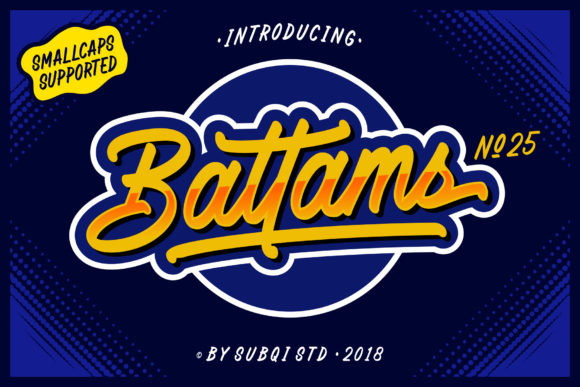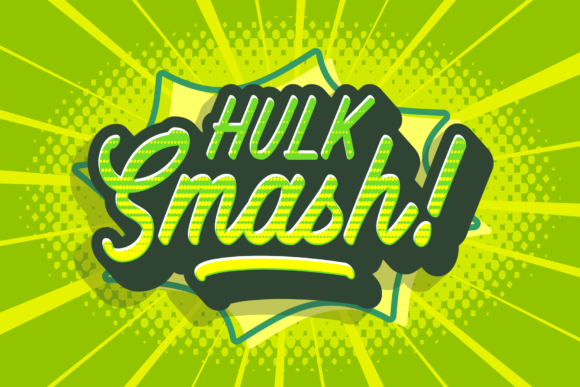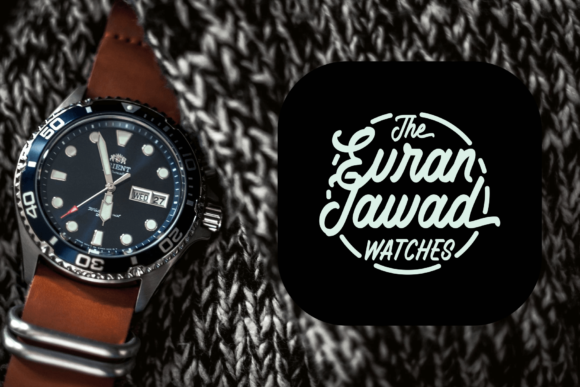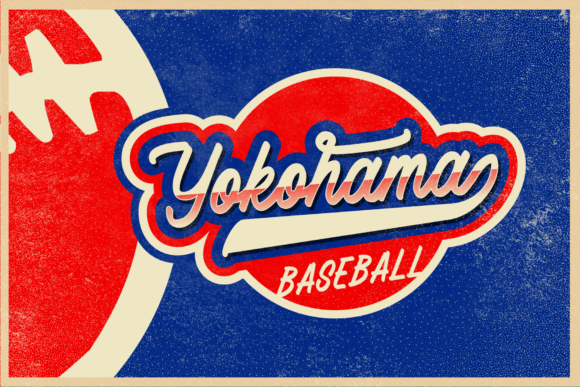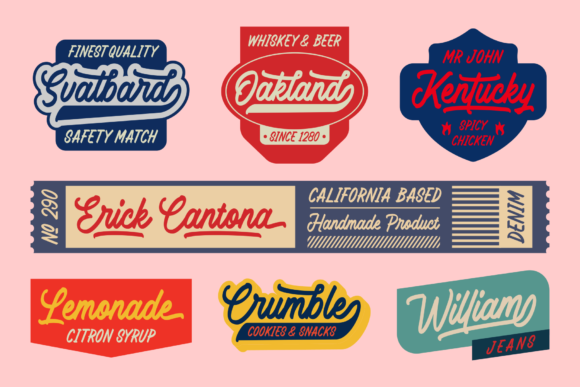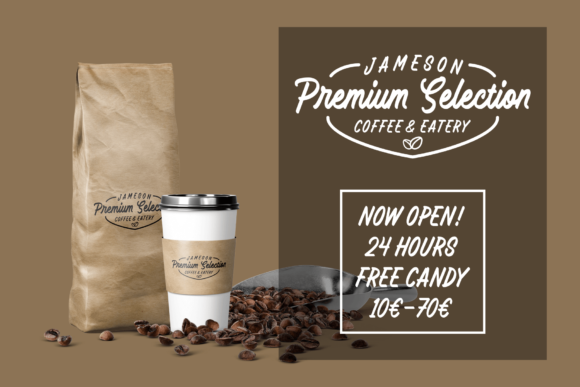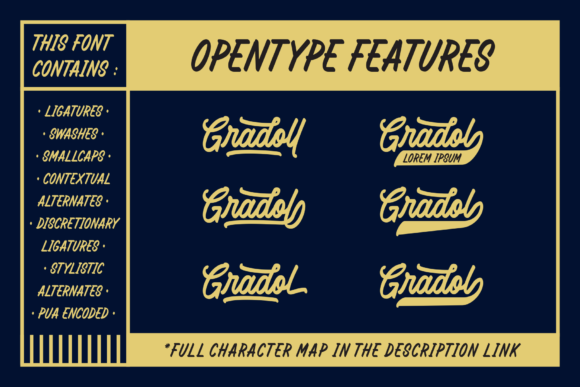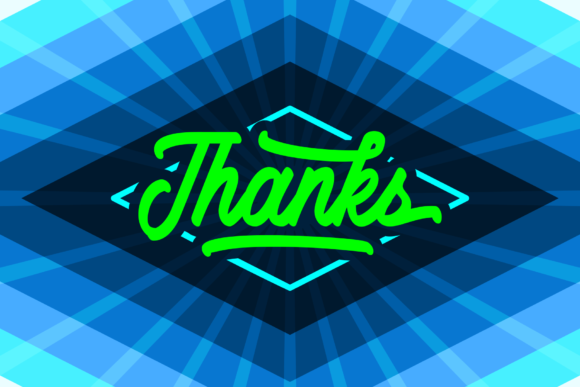
Battams Font
About Battams Font
The Battams is a bold, striking script font. It was made with a constant weight with an oval tip line. Perfect for making your unique design stand out!